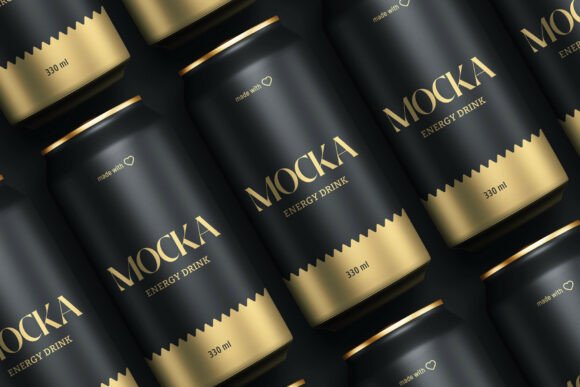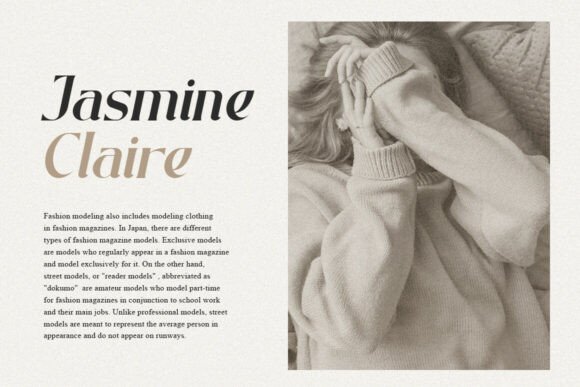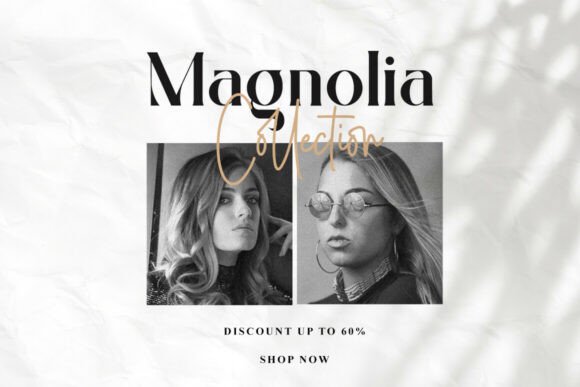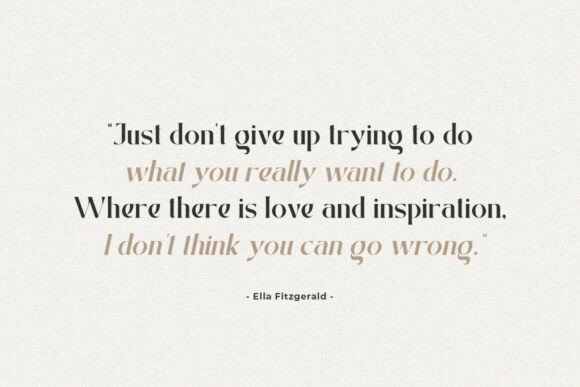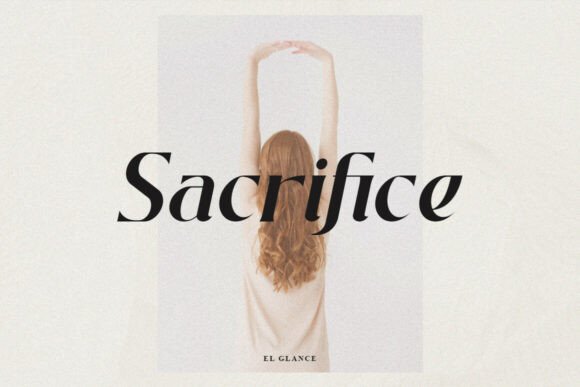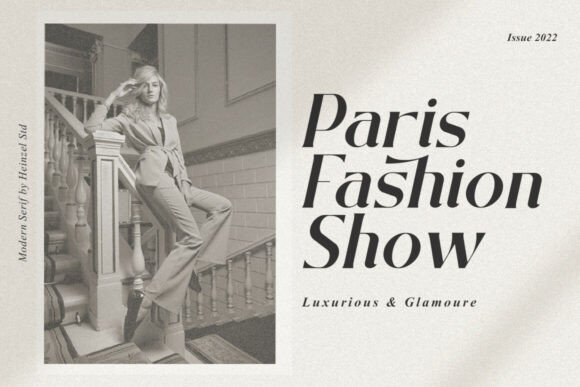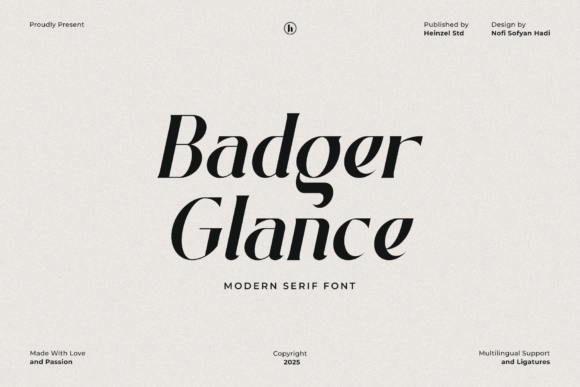
Introducing Badger Glance Font: Elevate Your Design with Timeless Elegance
In the world of typography, a well-crafted font can make all the difference in elevating your design to new heights. For designers and crafters seeking a sophisticated and modern serif font, look no further than Badger Glance. This stunning font seamlessly blends timeless elegance with contemporary design, making it the perfect choice for a wide range of creative projects.
Refined Curves and Stylish Ligatures
Badger Glance boasts refined curves and stylish ligatures that add a touch of luxury to any design. Its balanced letterforms ensure a smooth reading experience, making it ideal for editorial layouts, branding, and high-end packaging. The font’s sophisticated details are sure to make your project stand out, whether in digital or print.
Badger Glance’s versatility makes it an excellent choice for various design applications. Some of the areas where this font truly shines include:
- Branding: Create a lasting impression with Badger Glance’s elegant and sophisticated aesthetic, perfect for logos, business cards, and brand guidelines.
- Editorial Layouts: Elevate your publications with Badger Glance’s refined curves and balanced letterforms, ideal for magazines, newspapers, and books.
- Logo Design: Make a statement with Badger Glance’s stylish ligatures and sophisticated details, perfect for creating memorable logos and wordmarks.
- High-End Packaging: Add a touch of luxury to your packaging designs with Badger Glance’s elegant and refined aesthetic.
Multilingual Support and Smooth Readability
Badger Glance offers multilingual support, making it an excellent choice for designers working on international projects. The font’s smooth readability ensures that your message is conveyed clearly, regardless of the language or medium.
Why Choose Badger Glance?
With so many fonts available, why choose Badger Glance? Here are just a few reasons why designers and crafters are falling in love with this stunning serif font:
- Luxurious Aesthetic: Badger Glance’s sophisticated details and refined curves create a luxurious and professional look that’s sure to impress.
- Versatility: This font is perfect for a wide range of design applications, from branding and editorial layouts to logo design and high-end packaging.
- Multilingual Support: Badger Glance offers multilingual support, making it an excellent choice for international projects.
- Smooth Readability: The font’s balanced letterforms and refined curves ensure a smooth reading experience, making it perfect for digital and print projects.
| Font Name | Badger Glance Font |
| Author | Heinzel Std |
In conclusion, Badger Glance is a modern serif font that offers the perfect blend of timeless elegance and contemporary design. With its refined curves, stylish ligatures, and balanced letterforms, this font is sure to elevate your design work to new heights. Whether you’re a designer or crafter, Badger Glance is an excellent choice for anyone seeking a sophisticated and luxurious font for their creative projects.